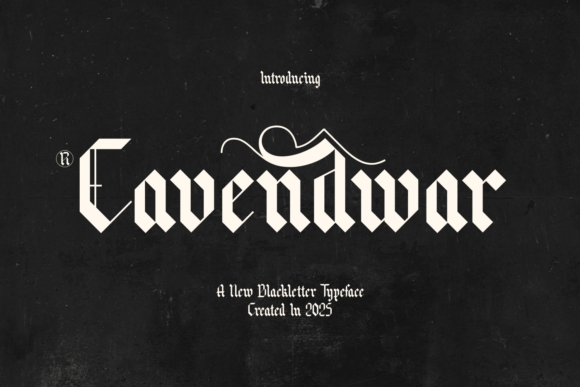
Cavendwar Font: A Striking Blackletter Typeface for Elegant Designs
In the realm of typography, few fonts manage to evoke the elegance of medieval calligraphy while also exuding a bold, modern aesthetic. Cavendwar, a striking blackletter typeface, achieves this delicate balance with remarkable precision. Its dramatic letterforms, ornamental flair on select characters, and bold, angular lines make it an ideal choice for designs that demand a historical or gothic atmosphere. Whether you’re crafting logos, book covers, tattoos, or any other design that requires a refined edge, Cavendwar is the perfect font to make bold, timeless statements.
Key Features of Cavendwar Font
- Medieval Elegance: Cavendwar’s design roots are deeply planted in medieval calligraphy, offering an air of historical sophistication to any project.
- Bold and Angular Precision: The font’s bold, angular lines ensure that your designs stand out with a confident, assertive presence.
- Dramatic Letterforms: Each letter in Cavendwar is crafted to make a statement, with dramatic flourishes that add an element of luxury and grandeur.
- Ornamental Flair: Select characters feature an ornamental flair, adding an extra layer of elegance and detail to your designs.
- Versatility: From logos and book covers to tattoos and more, Cavendwar’s versatility ensures it can be used across a wide range of design projects.
Ideal Design Applications for Cavendwar
Cavendwar’s unique blend of medieval elegance and modern boldness makes it suitable for a variety of design applications. Here are some of the ideal uses for this striking typeface:
- Logos: Create a lasting impression with a logo that combines historical flair with a contemporary edge.
- Book Covers: Add a touch of gothic or historical fiction to your book covers, making them stand out on bookshelves and online.
- Tattoos: For those looking to make a bold statement with body art, Cavendwar’s dramatic letterforms offer a unique and elegant solution.
- Advertising and Marketing: Use Cavendwar to add a sophisticated, high-end feel to your advertising and marketing materials.
- Packaging: Elevate your product packaging with a font that exudes luxury, history, and refinement.
Tips for Using Cavendwar Effectively in Typography
To maximize the impact of Cavendwar in your designs, consider the following typography tips:
- Pair with Simplicity: Balance Cavendwar’s boldness by pairing it with simpler, sans-serif fonts for body text or supporting information.
- Consider Contrast: Play with contrast by adjusting font sizes, weights, and colors to make certain words or phrases stand out.
- Utilize White Space: Don’t be afraid to use white space around Cavendwar text to enhance its bold presence and create a clean, elegant look.
- Experiment with Colors: While black and dark colors naturally complement Cavendwar’s design, experimenting with other colors can reveal unique and captivating aesthetics.
Inspiration Gallery: Cavendwar in Action
Visual inspiration can often spark creativity and guide the application of a font like Cavendwar. Below are some hypothetical design examples showcasing Cavendwar’s potential:
Logo Design: A medieval-inspired company logo featuring Cavendwar’s elegant, bold letterforms.
Book Cover: A gothic fiction book cover utilizing Cavendwar to evoke a sense of mystery and intrigue.
Tattoo Design: A custom tattoo featuring a meaningful quote or phrase in Cavendwar’s striking blackletter style.
Cavendwar font stands out in the world of typography for its ability to blend medieval elegance with a bold, modern aesthetic. Its suitability for a wide range of design applications, from logos and book covers to tattoos and advertising, makes it a versatile and valuable tool for designers. By incorporating Cavendwar into your projects, you’re not just choosing a font; you’re making a statement of elegance, boldness, and timelessness. As you explore the possibilities with Cavendwar, remember to experiment with its features, play with typography tips, and let your creativity lead the way to stunning, impactful designs.